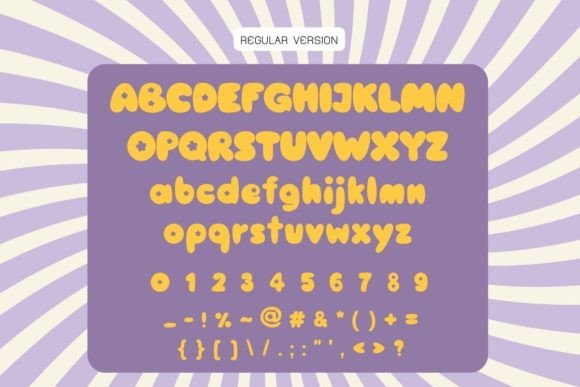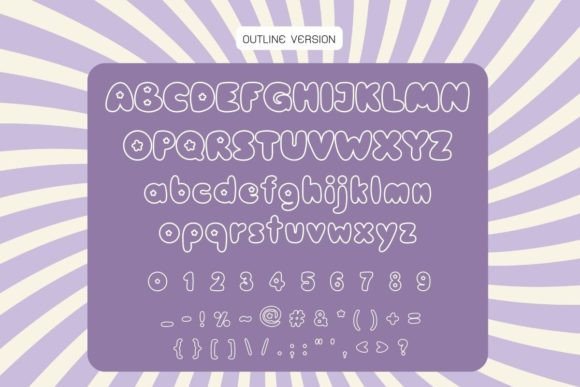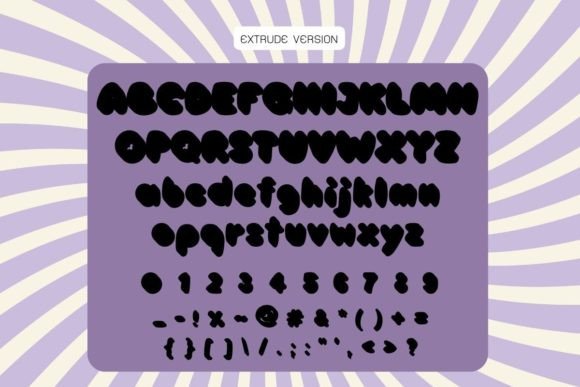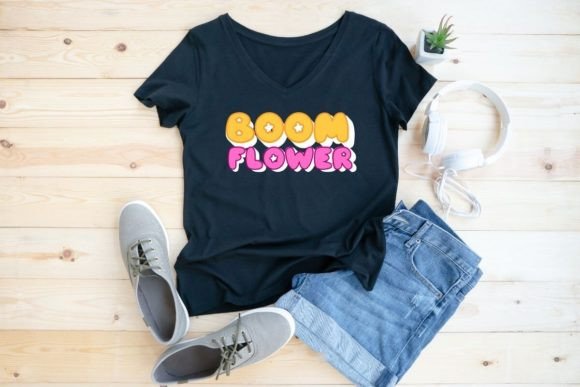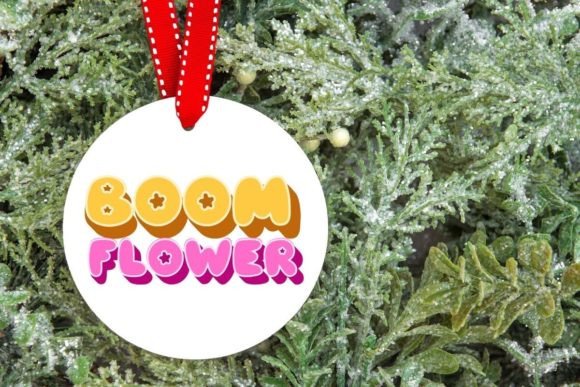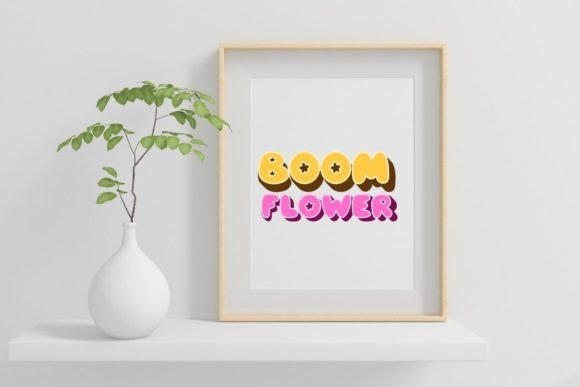
Introducing Boom Flower Font: The Perfect Addition to Your Design Collection
Are you a designer or crafter looking for a font that can add a touch of playfulness and whimsy to your projects? Look no further than the Boom Flower Font! This adorable display font is perfect for creating eye-catching posters, fun children-themed designs, colorful stickers, and more.
What Makes Boom Flower Font So Special?
Boom Flower Font is a cute and funny display font that boasts graceful and fluid letterforms. Its unique design exudes a sense of playfulness, making it an ideal choice for designers and crafters who want to add a dash of personality to their work. Whether you’re creating a poster for a kids’ party, designing stickers for a craft project, or developing a brand identity for a children’s product, this font is sure to delight.
Key Features of Boom Flower Font
- Cute and Playful Design: Boom Flower Font features a unique and charming design that’s perfect for creating fun and engaging designs.
- Graceful and Fluid Letterforms: The font’s flowing letterforms give it a sense of elegance and sophistication, making it suitable for a wide range of design projects.
- Display Font: As a display font, Boom Flower Font is designed to make a statement. It’s perfect for headlines, titles, and other prominent text elements.
- Multipurpose: This font can be used for a variety of design projects, including posters, stickers, children-themed designs, and more.
Uses for Boom Flower Font
Boom Flower Font is an incredibly versatile font that can be used for a wide range of design projects. Here are some ideas to get you started:
- Posters: Create eye-catching posters for kids’ parties, events, or promotions with Boom Flower Font.
- Children-Themed Designs: Use this font to create fun and engaging designs for children’s products, such as toys, books, or clothing.
- Stickers: Design colorful stickers for craft projects, parties, or events with Boom Flower Font.
- Branding: Use this font to create a brand identity for children’s products or services.
Tips for Using Boom Flower Font
To get the most out of Boom Flower Font, here are some tips to keep in mind:
- Use it as a Display Font: Boom Flower Font is designed to be used as a display font, so use it sparingly for headlines, titles, and other prominent text elements.
- Pair it with Other Fonts: Experiment with pairing Boom Flower Font with other fonts to create a unique and visually appealing design.
- Play with Colors: This font looks great in bright, bold colors, so don’t be afraid to experiment with different color schemes.
Boom Flower Font is a delightful and playful display font that’s perfect for designers and crafters who want to add a touch of whimsy to their projects. With its graceful and fluid letterforms, this font exudes a sense of playfulness that’s sure to delight kids and adults alike. Whether you’re creating posters, children-themed designs, stickers, or more, Boom Flower Font is an excellent choice. So why wait? Download Boom Flower Font today and start creating fun and engaging designs!